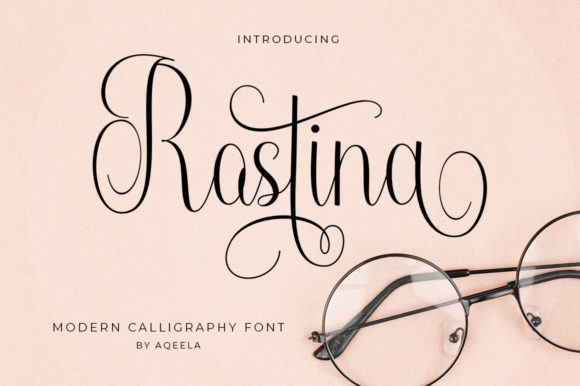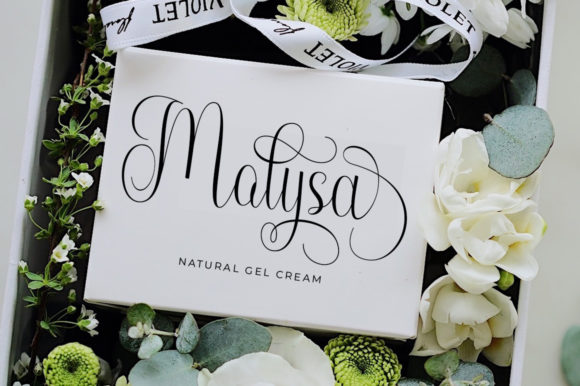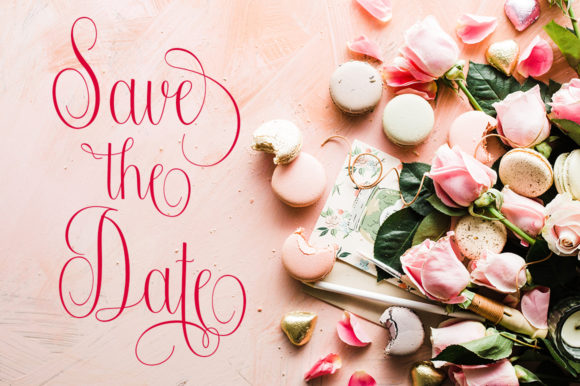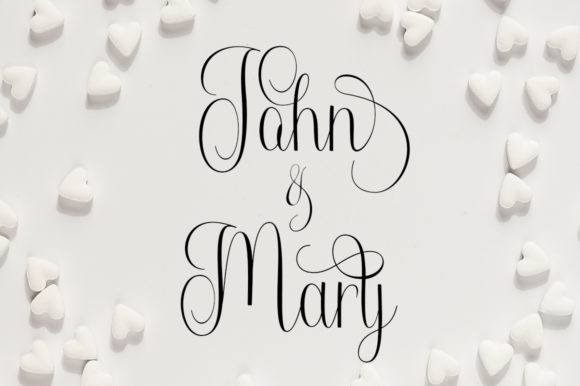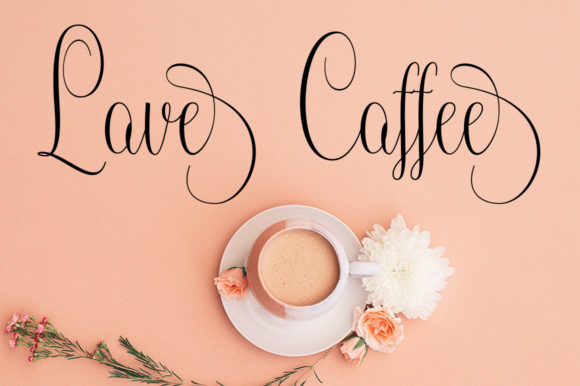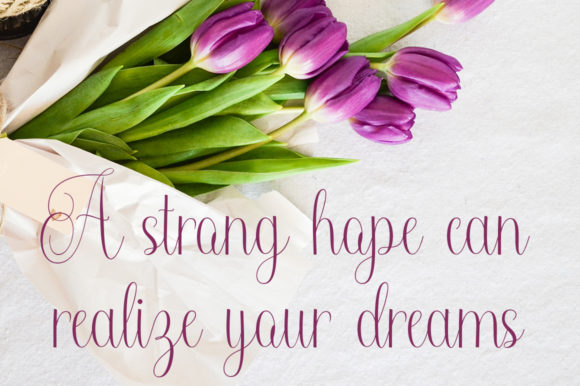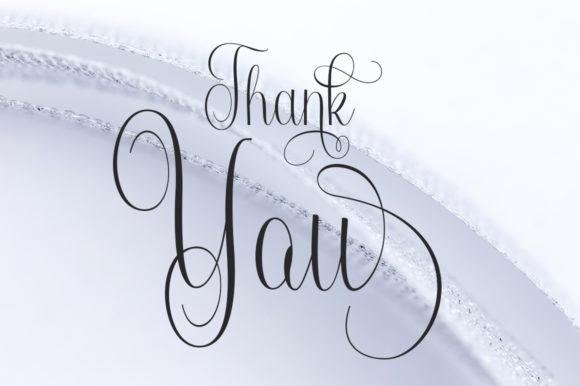
HomeScript FontsRostina Font Script Fonts Rostina Font FacebookXPinterestWhatsApp Rostina Font Poster 2 Rostina Font Poster 3 Rostina Font Poster 4 Rostina Font Poster 5 Rostina Font Poster 6 Rostina Font Poster 7 About Rostina Font Rostina is a sweet and gentle handwritten calligraphy font. Get inspired by its contemporary coolness! DOWNLOAD NOW People also explored Magic Font Resplendent Font Cupcake Pastry Font Michael Signature Font Village Stylish Font Ello Collection Font Bouffly Alice Medium Font Rapicha Font Octavian Font 300 0 TagsRostina Font Previous articleJanuary FontNext articleThe Billie Monlly Font LEAVE A REPLY Cancel reply Comment: Please enter your comment! Name:* Please enter your name here Email:* You have entered an incorrect email address! Please enter your email address here Website: Save my name, email, and website in this browser for the next time I comment. Personal Use Free Susanna Personal Use Free Read more about this font Green Fuz Personal Use Free Read more about this font Veronica Personal Use Free Read more about this font Bosque Font Personal Use Free Read more about this font BLOG Free vs Paid Fonts: Why Investing in Premium Fonts Is Worth It Free vs Paid Fonts: Why Premium Fonts Are Worth It in 2025 The debate of free vs paid fonts continues in the design world. While... Elegant Wedding Invitation Fonts – Handwritten & Script Fonts Transform Your Website: Elevate Your Typography with 7 Best Web Font Generators To increase your work productivity, choose the most readable fonts.